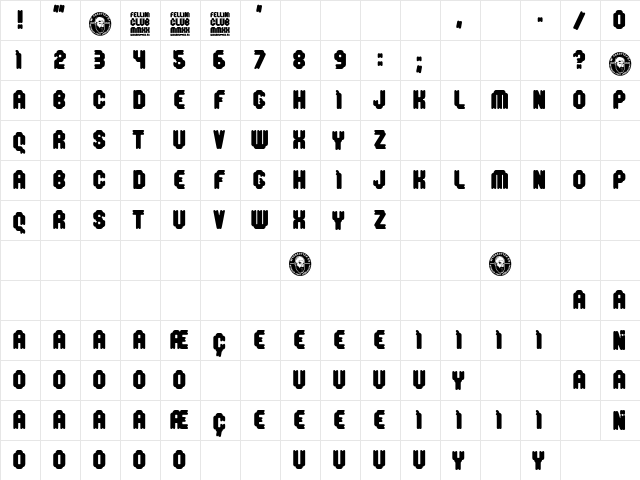
Fellini Club Regular
| Designer | Woodcutter Manero |
Design Context for Fellini Club Typeface
Fellini Club is a composed and adaptable typeface that performs quietly and consistently across a wide range of design contexts.